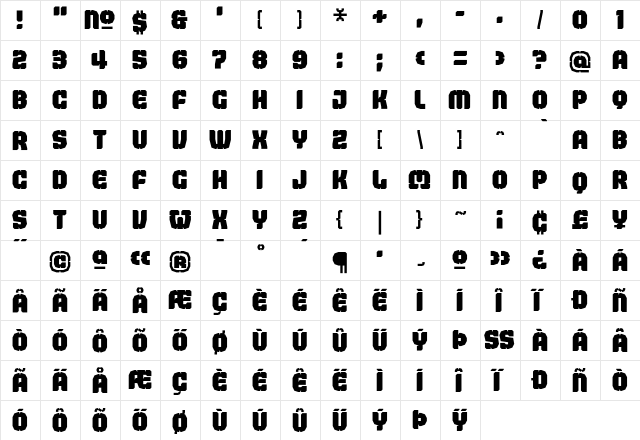
Judgement Regular Font Preview
Judgement Regular
Judgement Regular Font Details
Design Context for Judgement Typeface
Judgement is a composed and adaptable typeface that performs quietly and consistently across a wide range of design contexts.